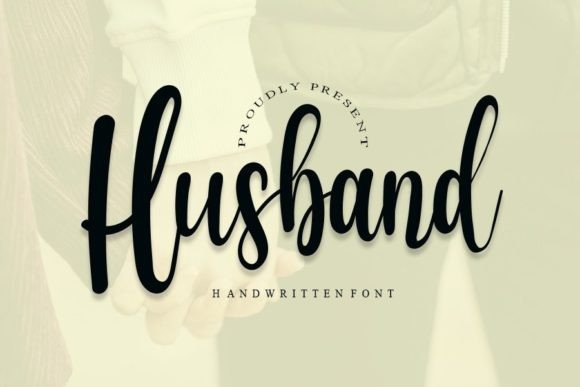
About Husband Font
Husband is a cool handwritten font with a modern vibe and spotless form, inspired by classic calligraphy. Not too thin and not too thick, balanced and varied, this font was designed to enhance the beauty of your projects.